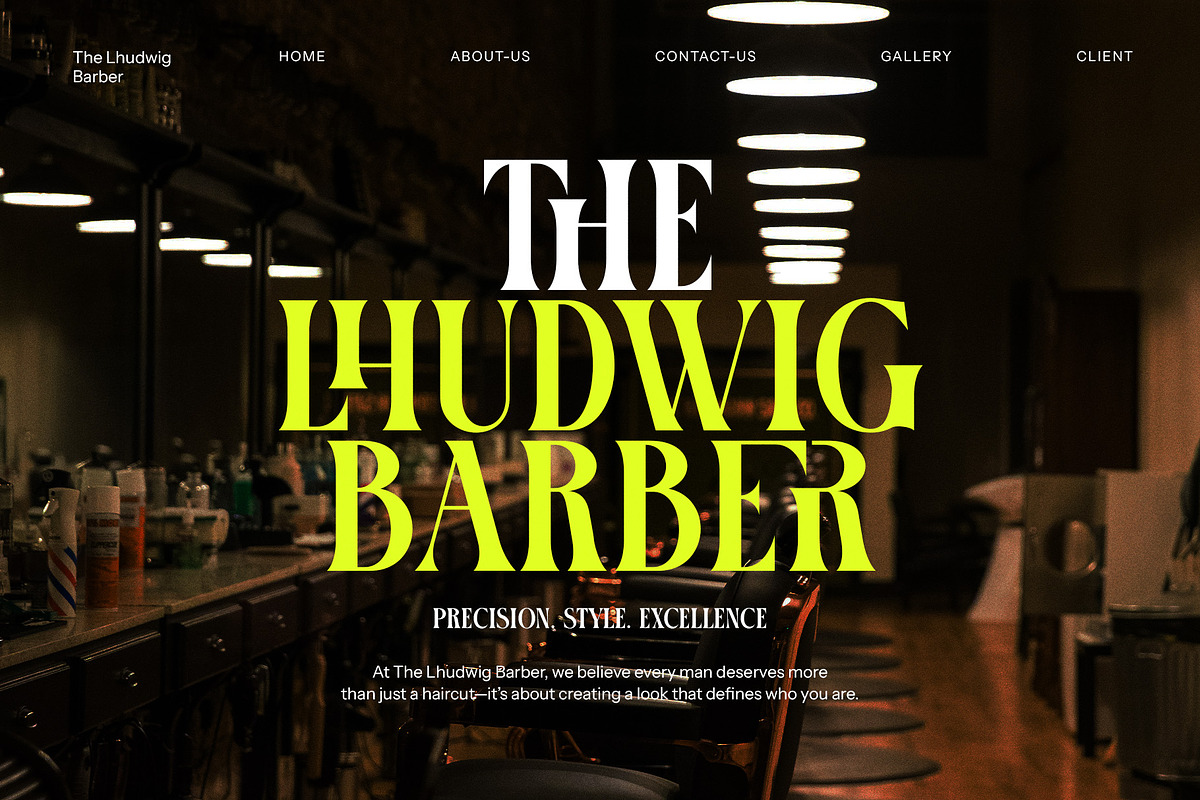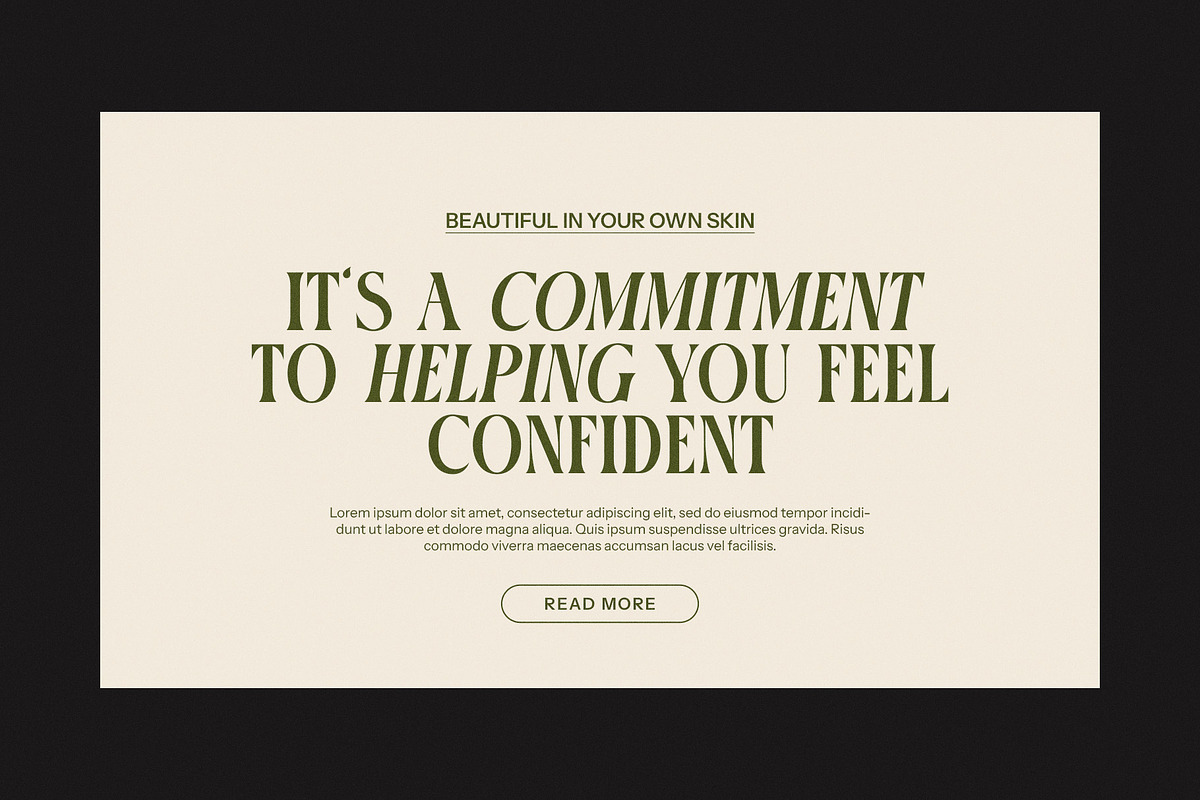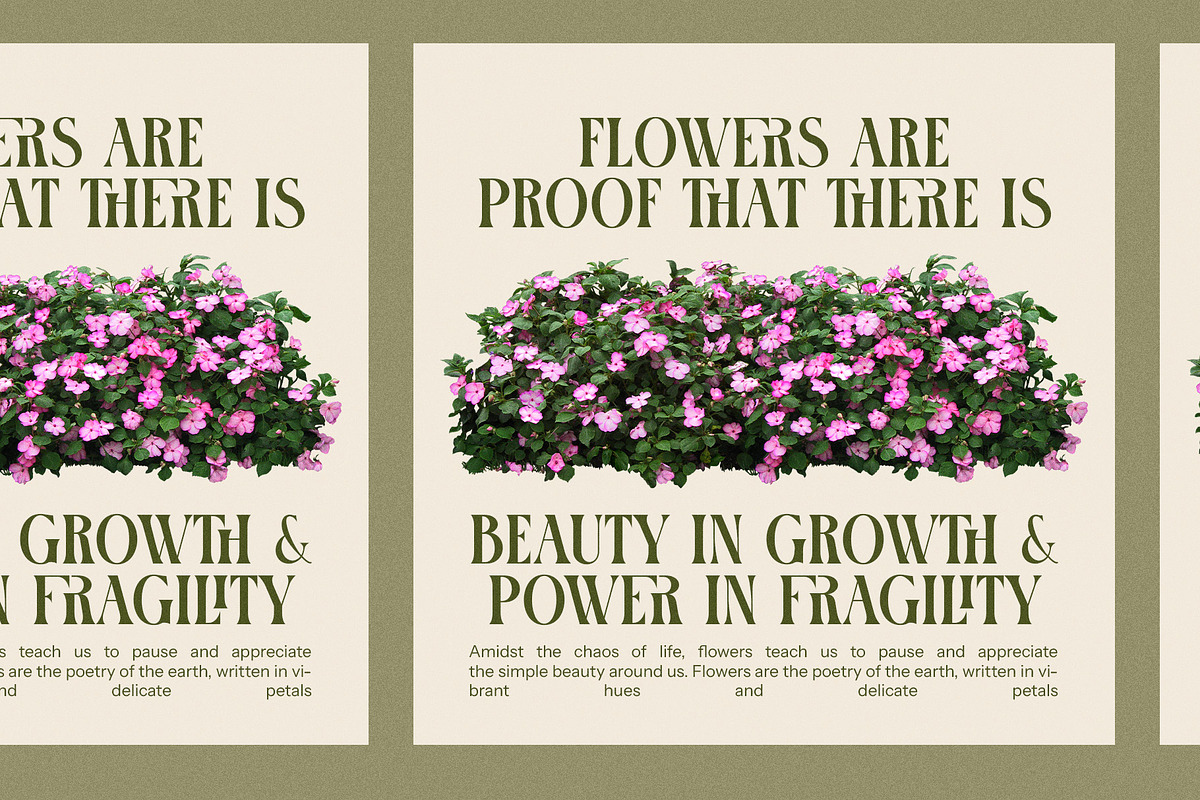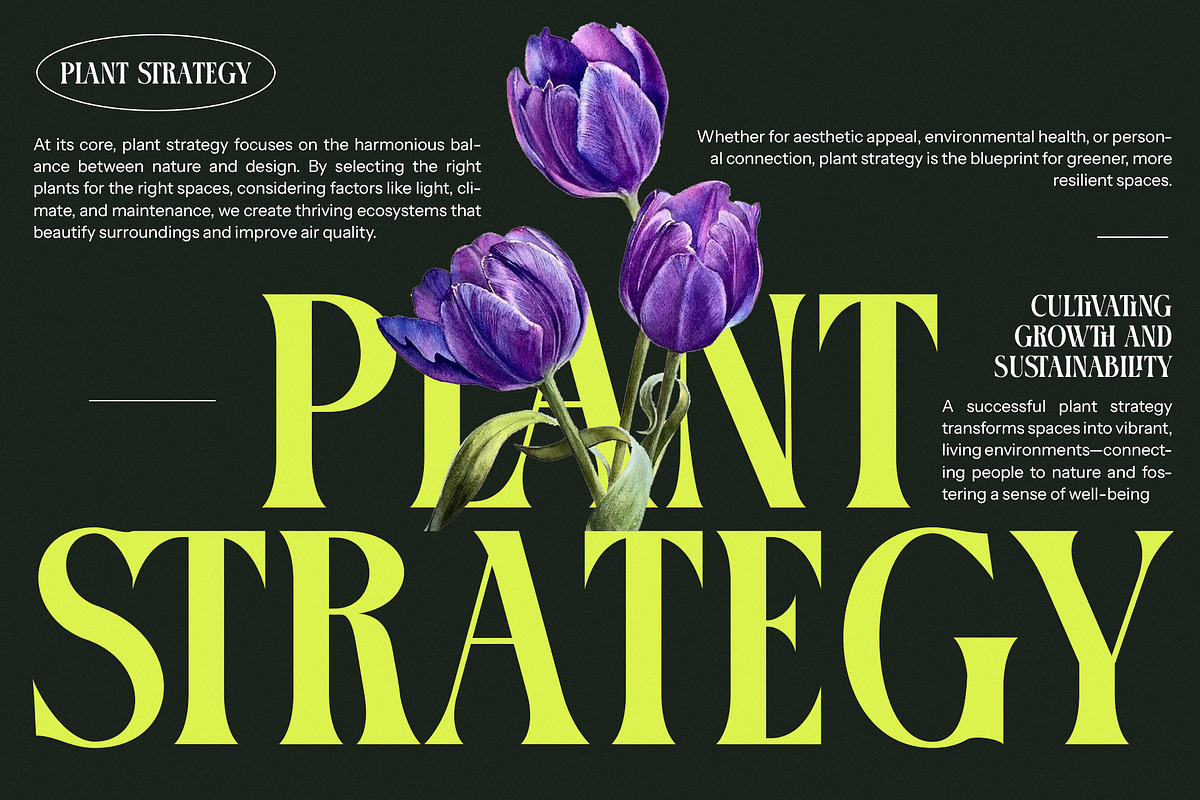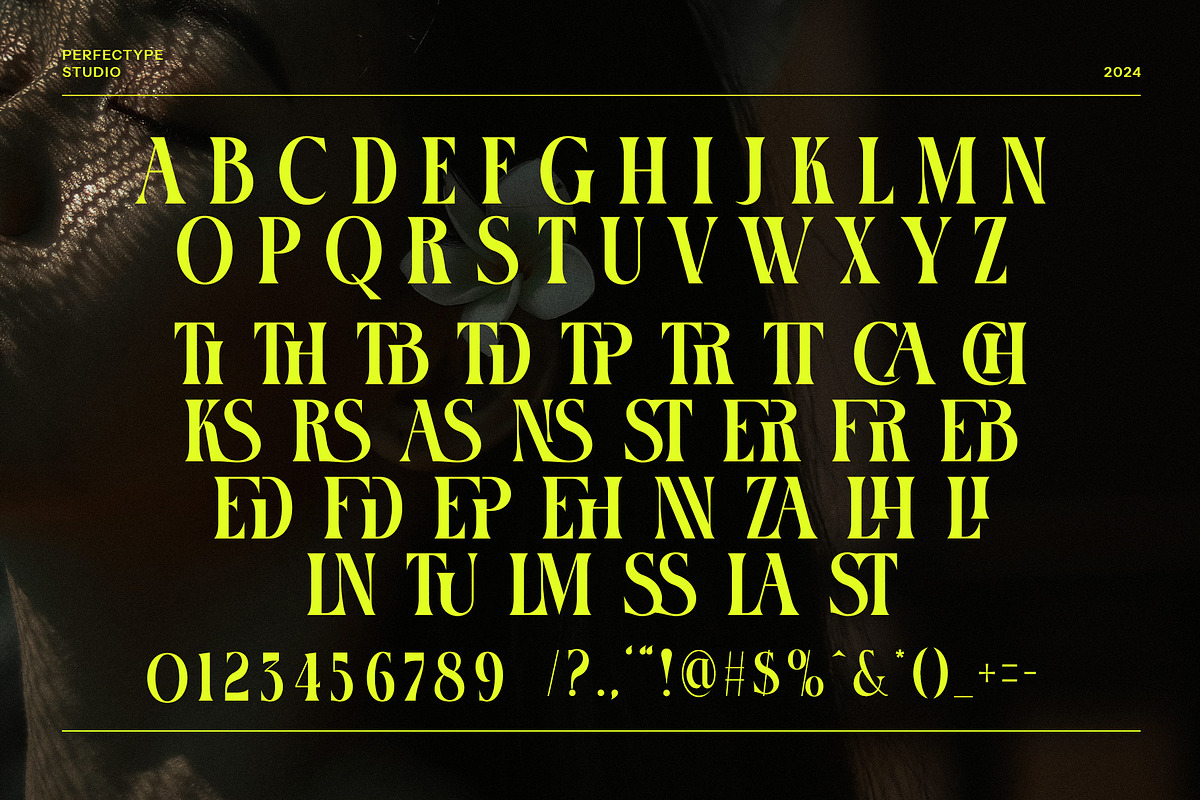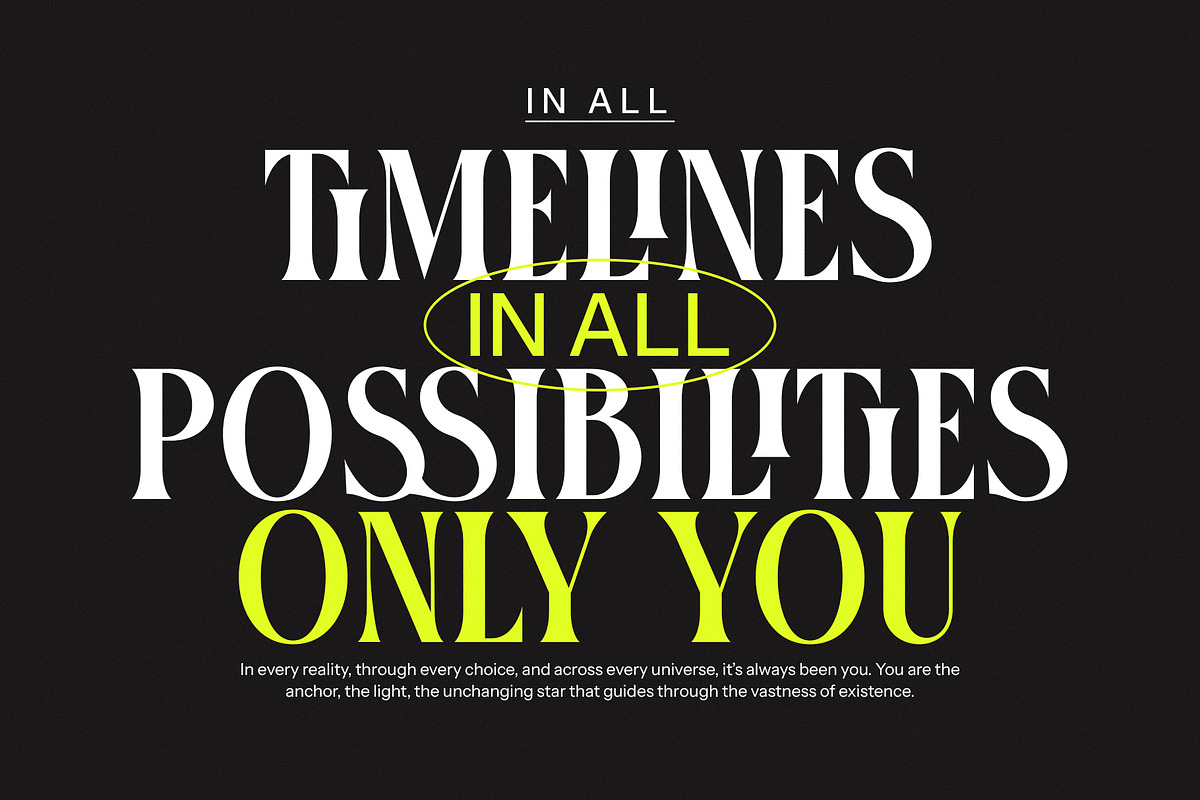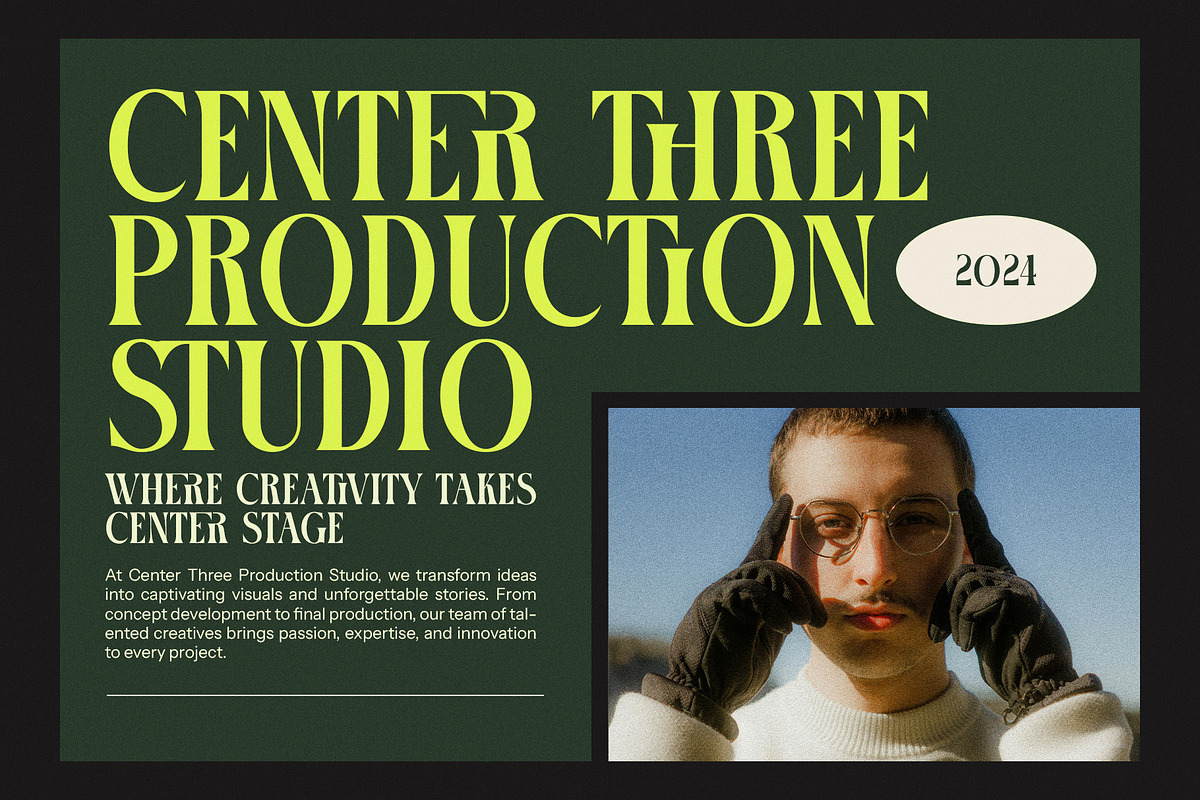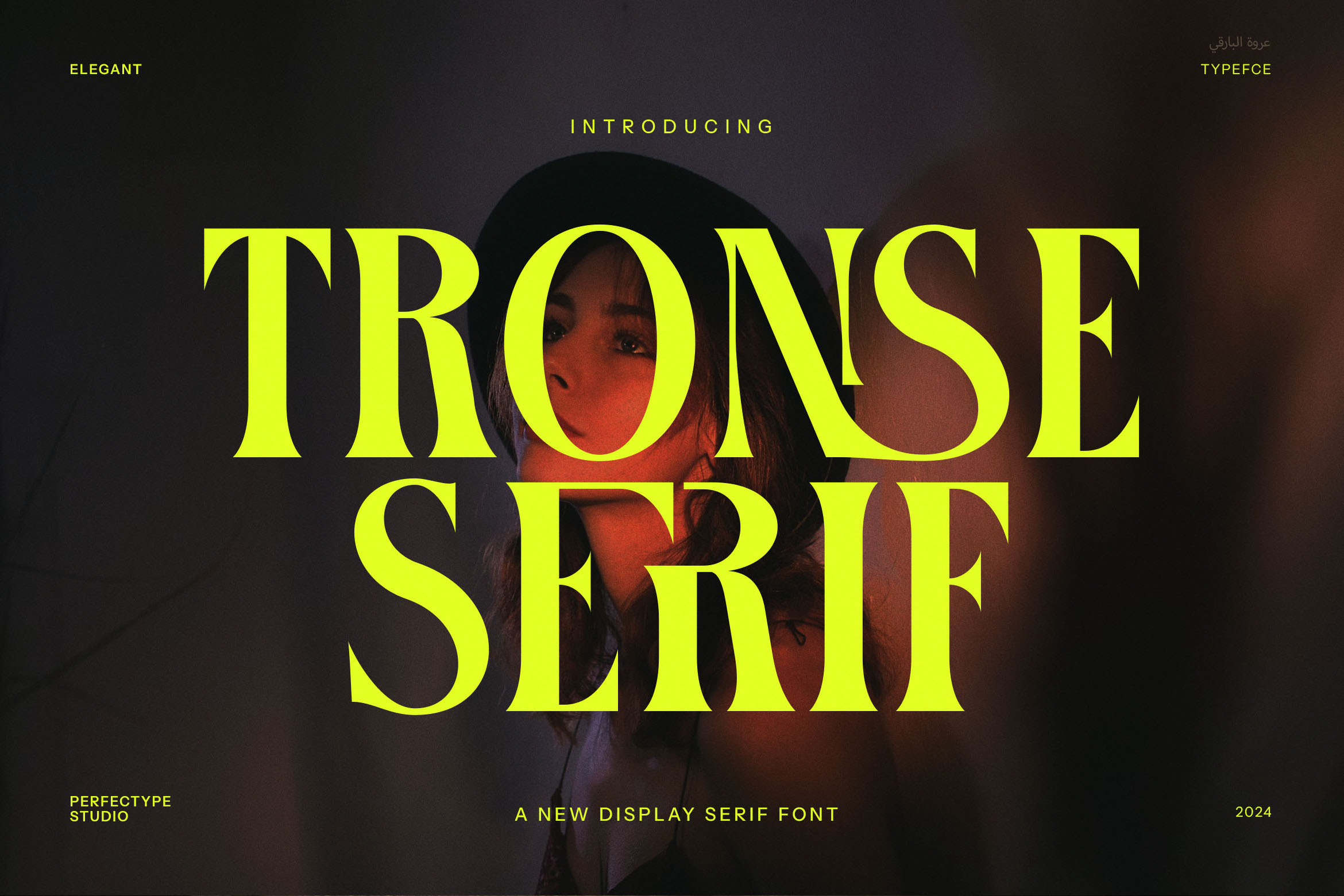
Tronse Elegant Serif Font
Tronse Elegant Serif Font is a contemporary and sophisticated typeface that seamlessly blends modern design with timeless elegance. Its unique structure and refined serifs exude luxury and style, making it an ideal choice for high-end branding projects, upscale websites, and editorial layouts. This font offers an exceptional level of detail with its carefully crafted ligatures and alternate characters, adding versatility and a touch of creativity to any design.
Designed with versatility in mind, Tronse Elegant Serif is perfect for logos, product packaging, advertising, and fashion-related designs. Whether you're creating a striking boutique brand, a chic restaurant menu, or a premium magazine layout, this font's sleek and stylish appearance will elevate your project. The harmonious combination of sharp edges and soft curves gives it a balanced, yet dynamic presence, making it stand out without overwhelming the viewer.
With its elegant serifs and sophisticated letterforms, Tronse Elegant Serif works beautifully for both large headlines and smaller text, ensuring readability while maintaining an air of refinement. The font's modern twist on classic serif styling ensures that it remains relevant and adaptable across various industries, from luxury goods to contemporary services. Whether you’re designing a logo, advertisement, or website, Tronse Elegant Serif will help communicate your brand’s message with grace and authority.
Ideal for those looking to make a statement with their typography, Tronse Elegant Serif brings a refined touch to any creative project.